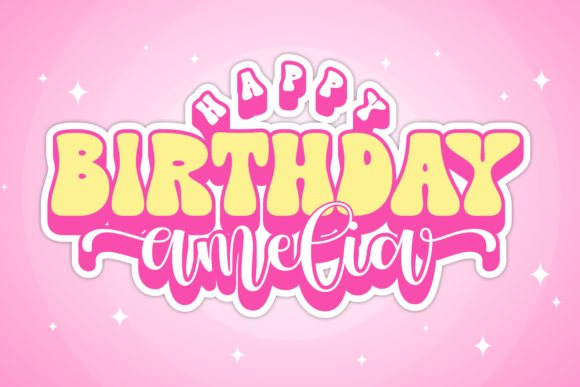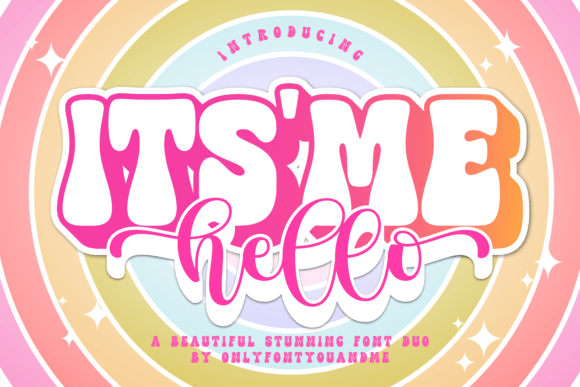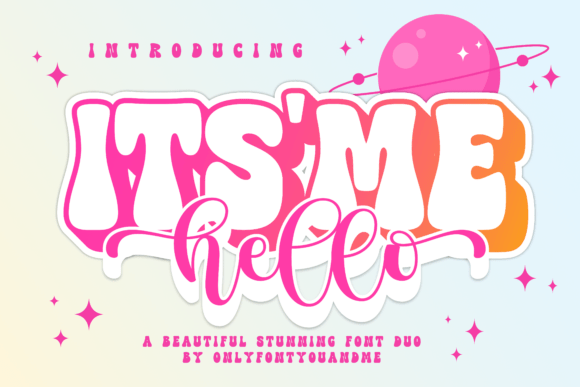
Introduction to Itsmehello Regular Font
The β€œIt’s Me Hello” font duo brings together two distinct yet perfectly complementary styles: a bold display font and an elegant script font.
β€œIt’s Me” is a chunky, bubble-style display typeface defined by thick, rounded letterforms and exaggerated proportions With its soft, curved terminals and wide, blocky shapes, it exudes a groovy, retro vibe.